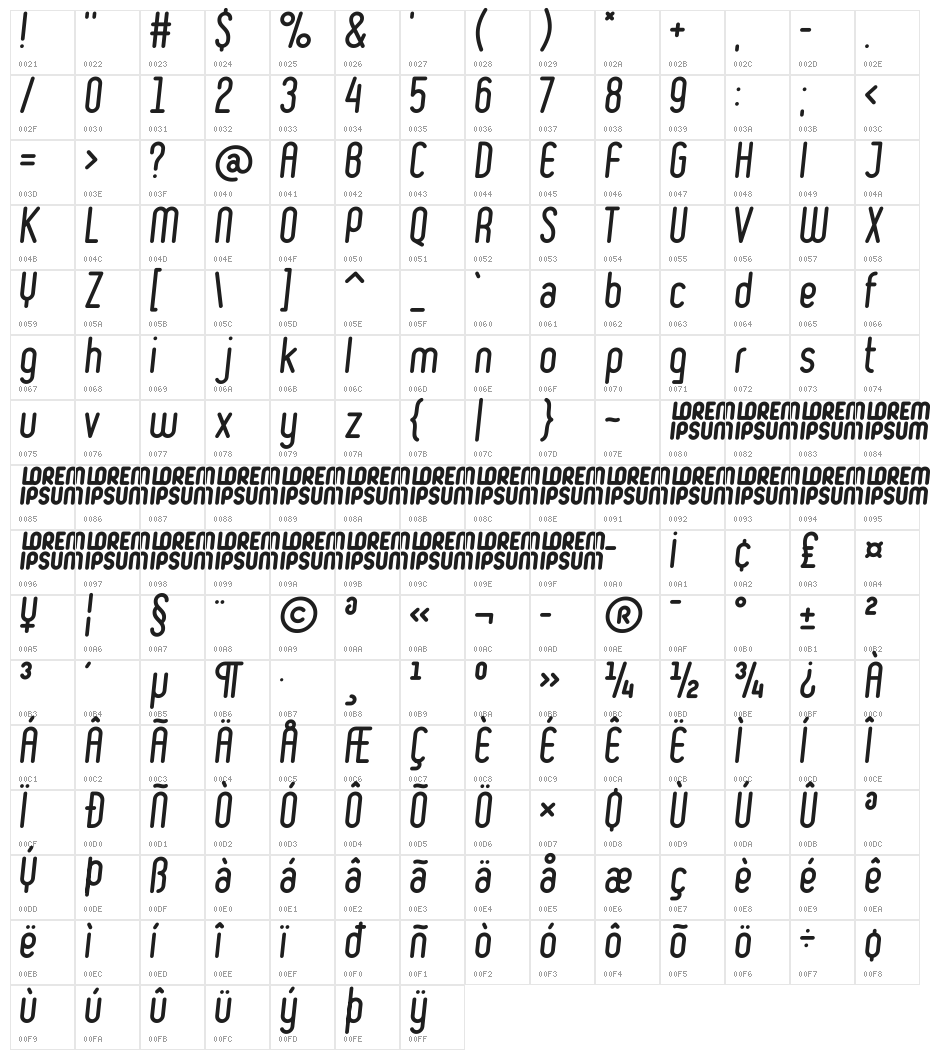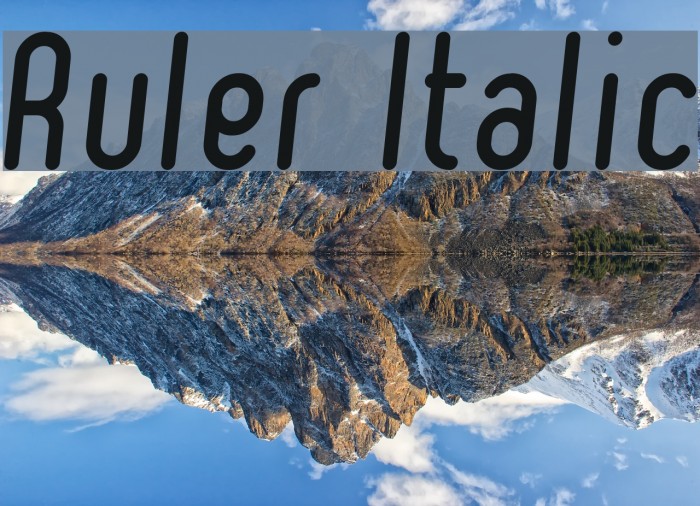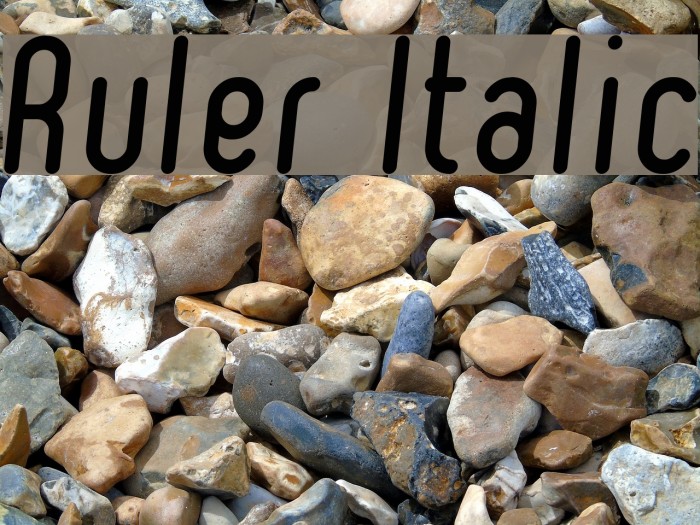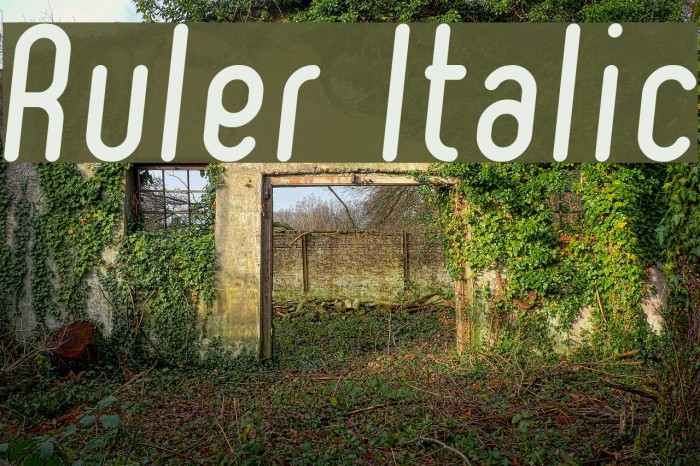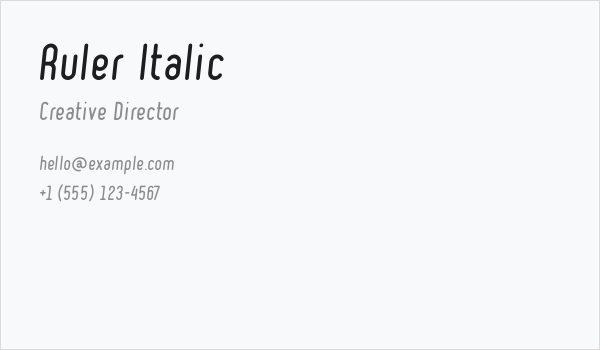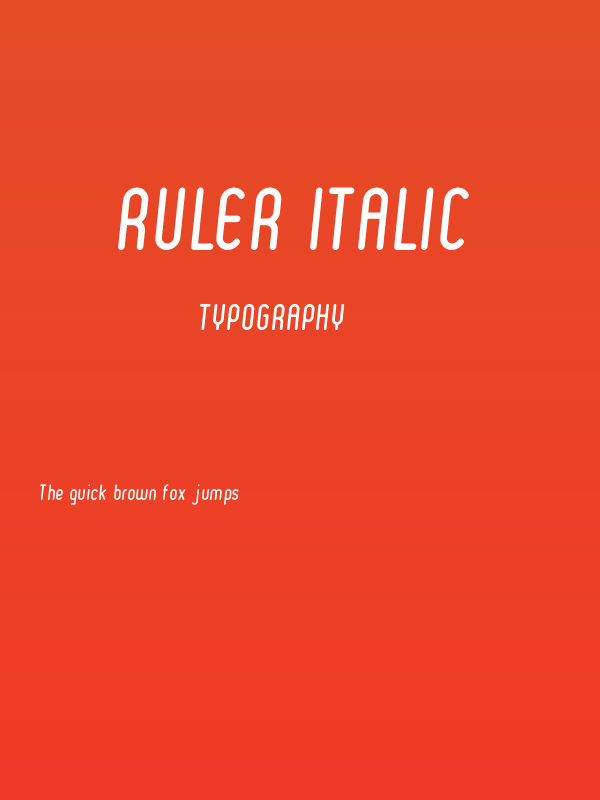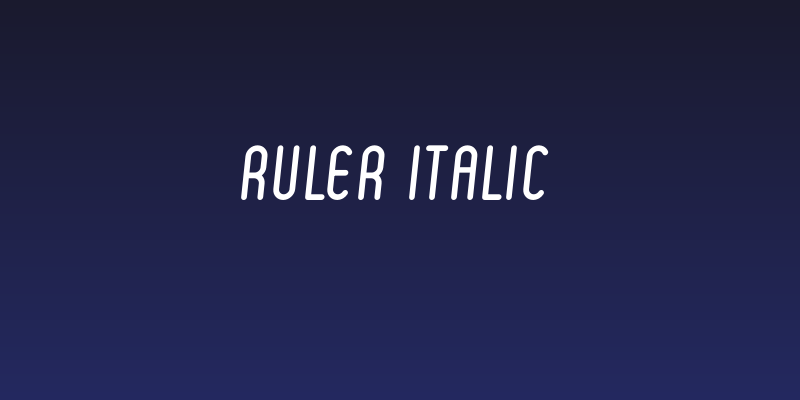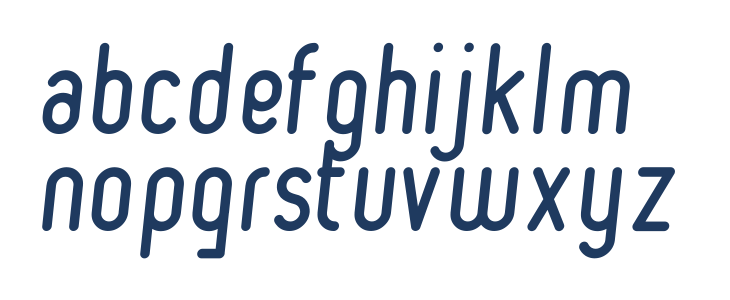
Ruler Italic Font
Ruler Italic Description
This font features a modern, streamlined design with a slight italic slant, giving it a dynamic and forward-moving appearance. The characters are rounded and smooth, with a consistent stroke width that maintains a clean and uniform look. The uppercase and lowercase letters are well-proportioned, and the numerals are clear and legible. The special characters are designed to complement the overall style, making it versatile for various applications. Its simplicity and elegance make it suitable for both digital and print media, providing a contemporary feel.